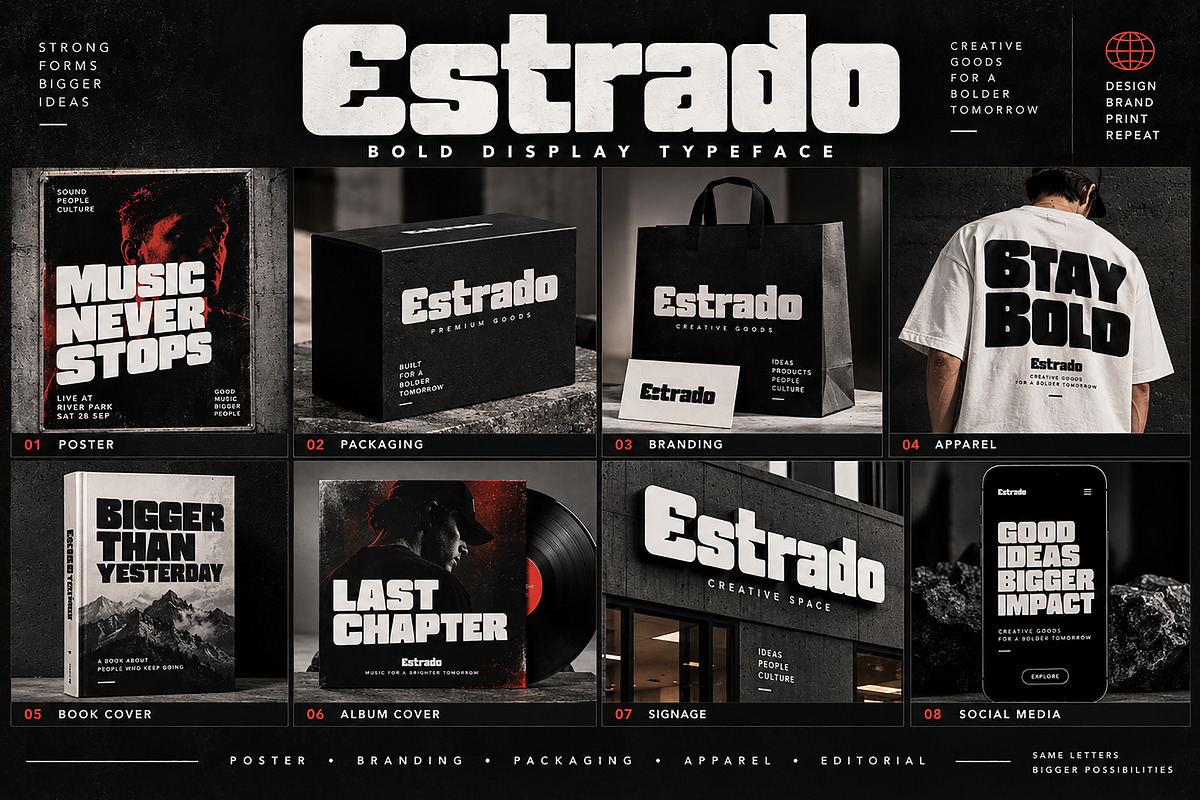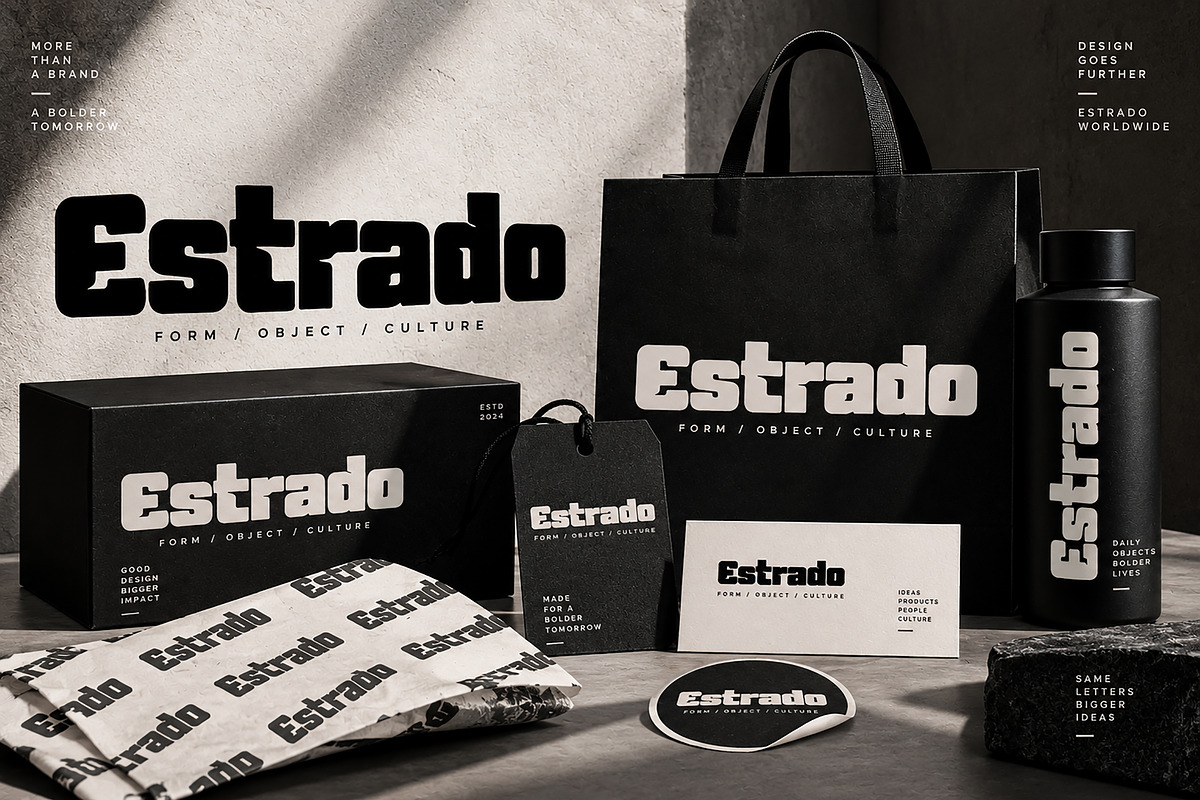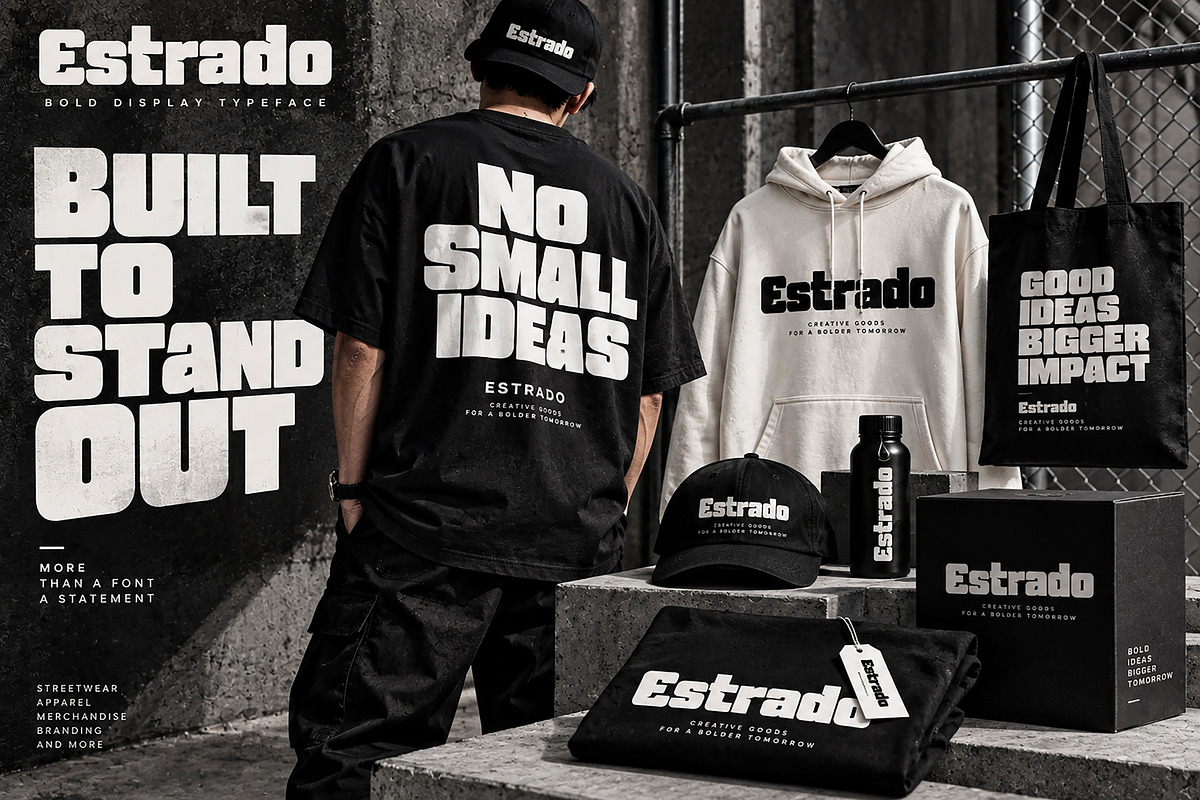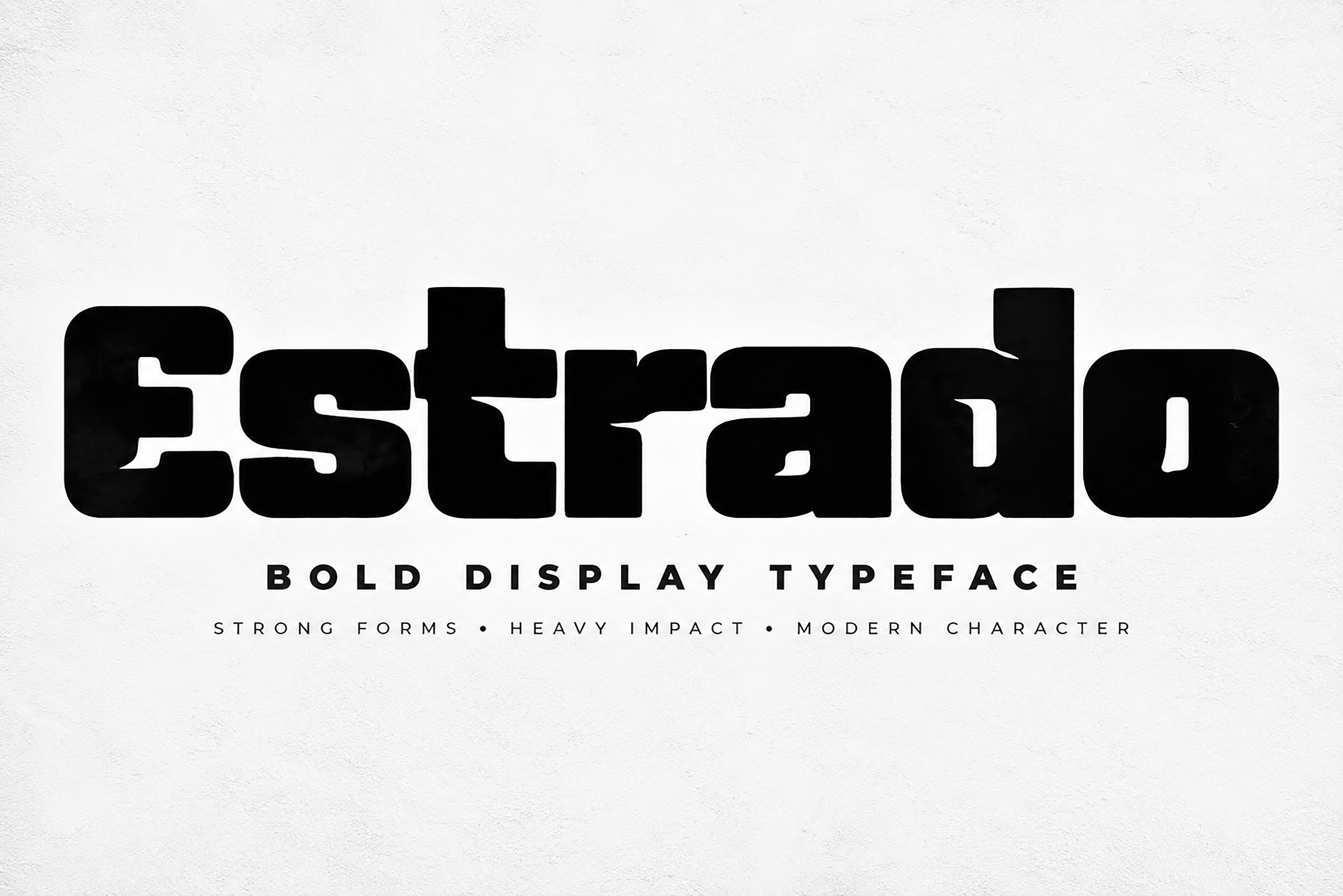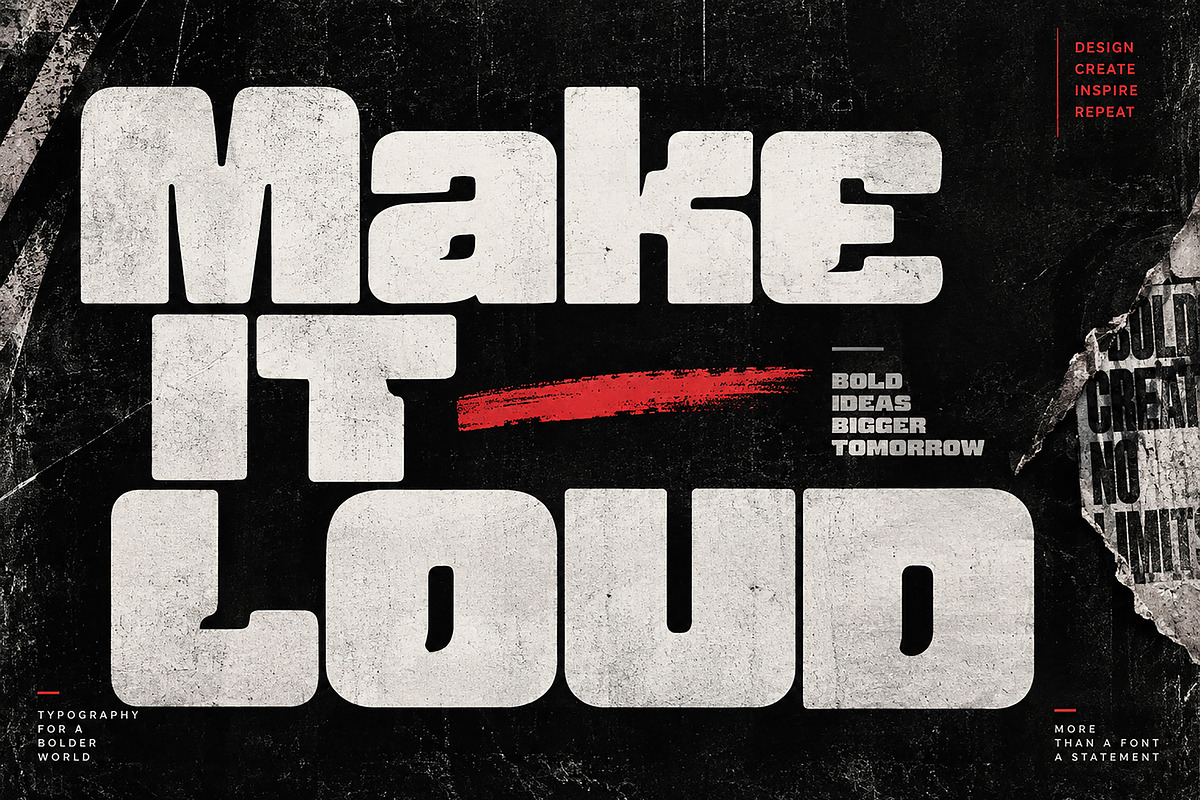
Estrado: Display Typeface
Estrado is a bold, heavy, and modern display typeface created to make a powerful visual statement. Its thick, compact letterforms and strong geometric presence give your typography a confident, contemporary character.
Designed for maximum impact, Estrado works beautifully for logos, branding, posters, headlines, apparel, packaging, advertising, social media graphics, labels, and other attention-grabbing display designs.
Whether you are creating a bold brand identity or a striking poster headline, Estrado adds weight and personality while keeping the overall design clean and modern.
✦ Features
Bold and heavy display style
Strong, compact letterforms
Modern geometric character
Excellent visual impact at large sizes
Ideal for headlines and short text
Suitable for print and digital projects
Versatile for branding and commercial design
✦ Perfect For
Brand Identity
Posters & Flyers
Headlines & Titles
T-Shirt & Apparel Design
Packaging & Labels
Advertising Graphics
Social Media Designs
Stickers & Badges
Editorial Typography
Product Branding
Creative Display Projects
Make a strong impression with Estrado — a heavy display font built for bold headlines, powerful branding, and modern visual communication.